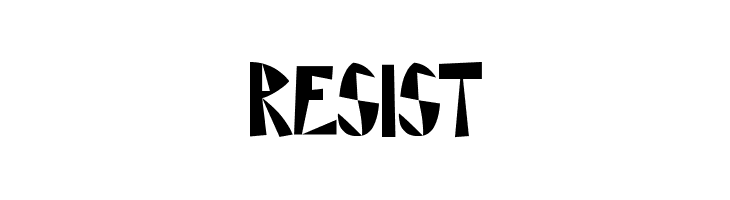
A bold, geometric font with sharp angles and high contrast strokes.
A bold, distressed font with a rugged, industrial texture.
A bold, geometric font with diagonal line patterns for a striking, industrial look.
A bold, geometric font with angular edges and a modern, digital aesthetic.
A bold, hand-drawn font with an expressive and playful style.
A dynamic and elegant script font with a handwritten appearance.
A dynamic, cursive script font with elegant, flowing strokes.
A bold, graffiti-inspired font with sharp, angular lines and dynamic shapes.
A modern, minimalist font with tall, narrow characters and consistent stroke width.